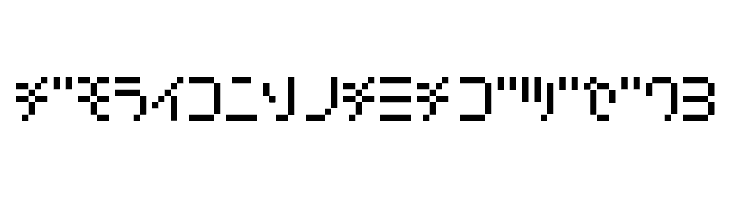
( Bojmic Interpro )
A bold, geometric font with a modern, digital aesthetic.
( Boba Fonts - web.archive.org/web/20000823041207/207.153.208.174/multimedia/bobafonts/ )
A bold, futuristic font with rounded edges and a sci-fi aesthetic.
( Blue Jay Font Studio - katzfonts.50megs.com/bj1.html )
A whimsical, decorative font with characters embedded in cartoon illustrations.
( Blue Jay Font Studio - katzfonts.50megs.com/bj1.html )
A playful decorative font with puppy illustrations, perfect for festive projects.
( Blue Jay Font Studio - katzfonts.50megs.com/bj1.html )
A decorative font with angel illustrations for each character, perfect for festive designs.
( Blue Jay Font Studio - katzfonts.50megs.com/bj1.html )
A decorative font with swan motifs and blackletter lowercase, ideal for creative projects.
( Blue Jay Font Studio - katzfonts.50megs.com/bj1.html )
A playful, stitched-style font with bold, geometric uppercase and lowercase letters.
( Blue Jay Font Studio - katzfonts.50megs.com/bj1.html )
A whimsical and decorative font with playful, snowflake-like details.
( Blue Jay Font Studio - katzfonts.50megs.com/bj1.html )
A bold, decorative font with merman-themed characters and thick outlines.
( Blue Jay Font Studio - katzfonts.50megs.com/bj1.html )
A decorative font with bold letters and whimsical mermaid illustrations.